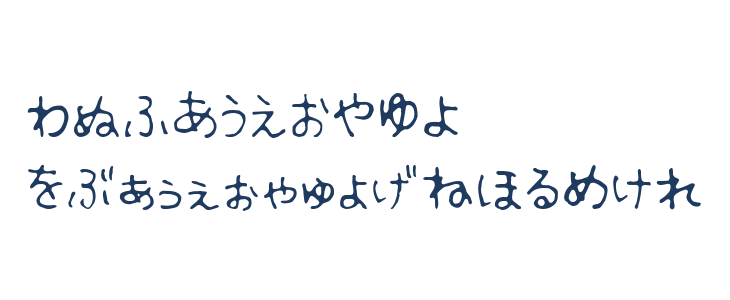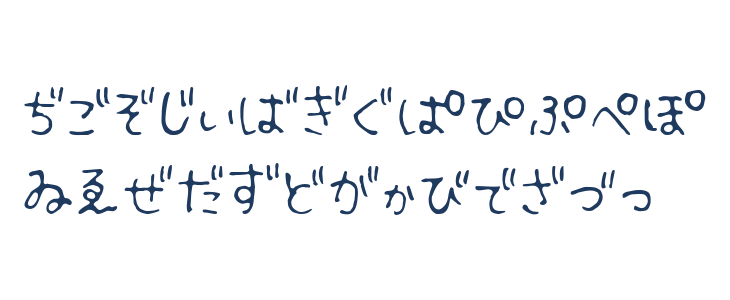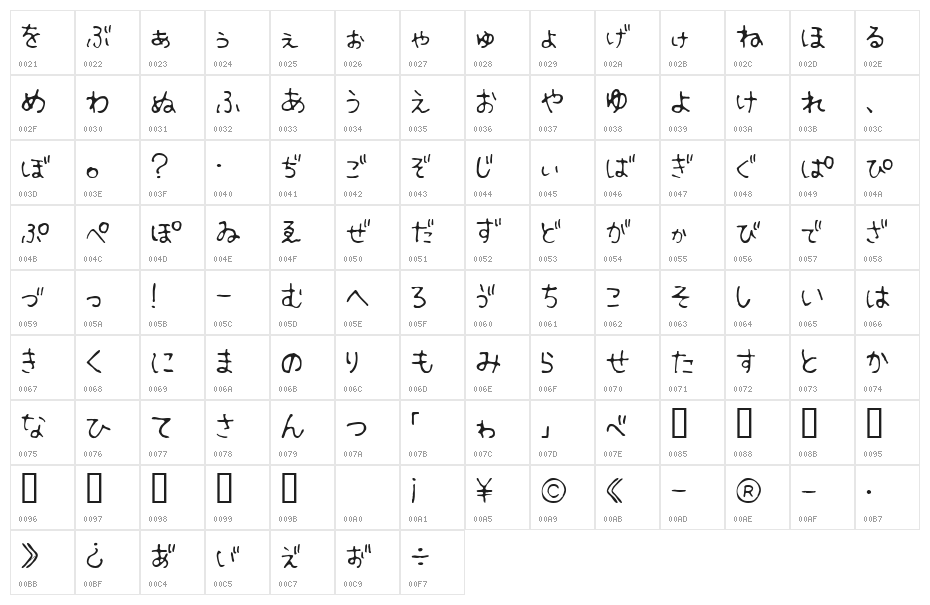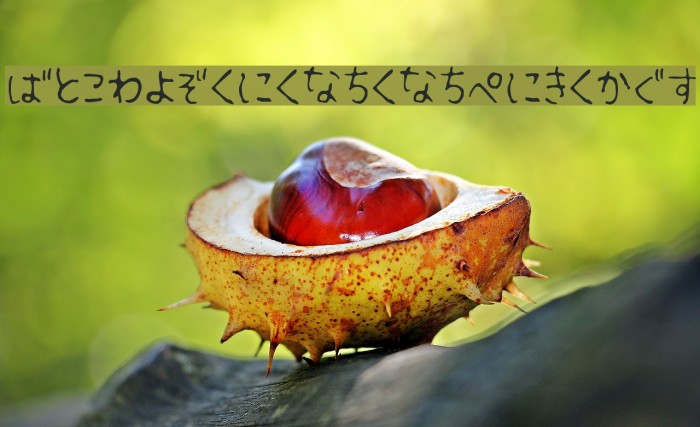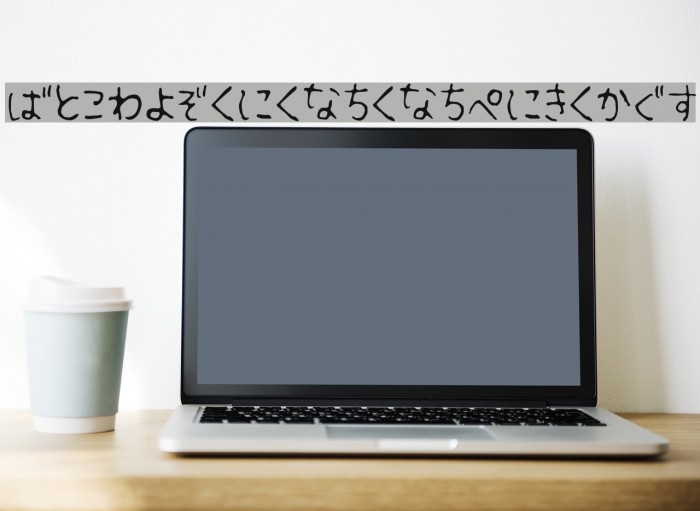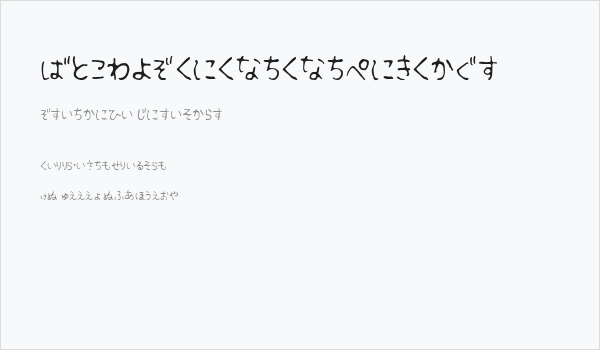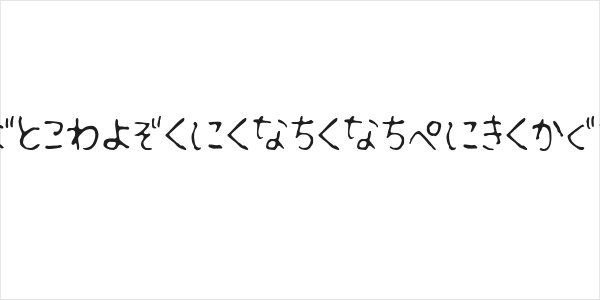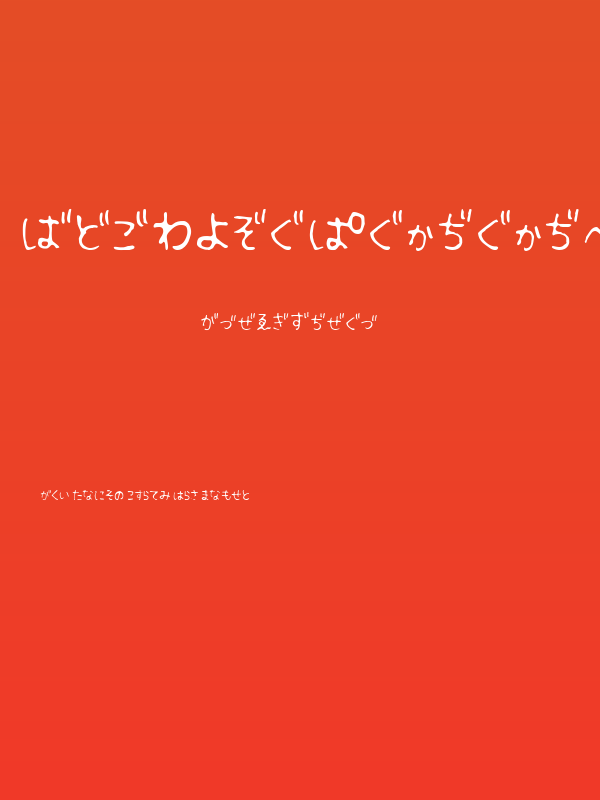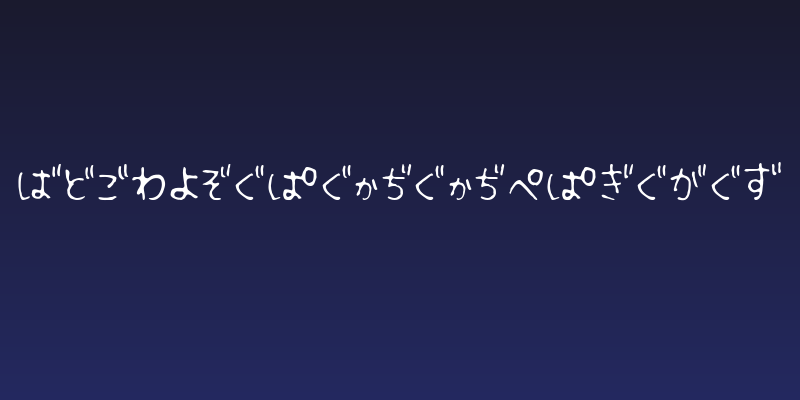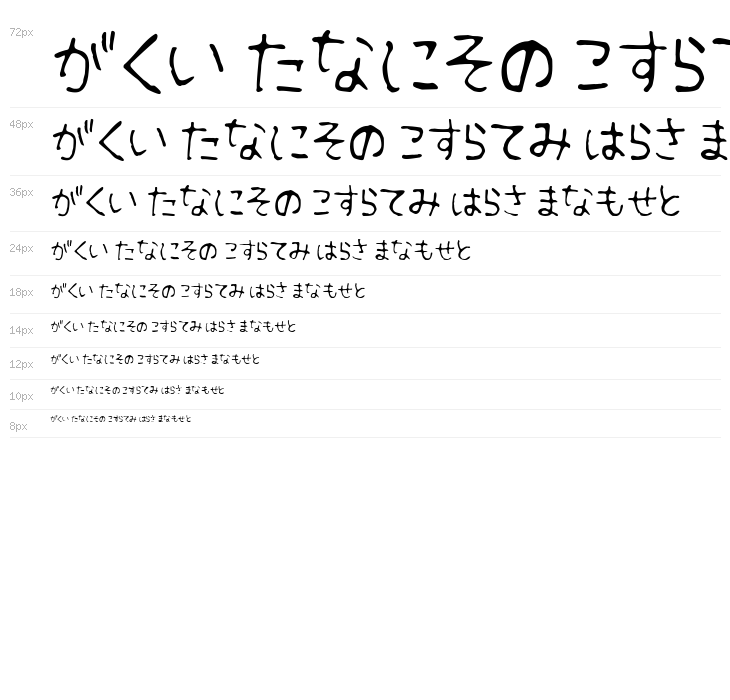
Fsb09ChihuahuaLightHr Font
Fsb09ChihuahuaLightHr Description
This font presents a playful and informal style, characterized by its handwritten appearance. The strokes are uneven, giving it a casual and friendly feel. The characters are slightly rounded with a natural flow, reminiscent of a personal note or a casual letter. The font maintains a consistent baseline, but the heights of the characters vary, adding to its whimsical charm. This style is particularly engaging for projects that aim to convey warmth and approachability. The overall look is both unique and inviting, making it suitable for creative and informal applications.
| Proposed Projects | Ideal for children's books, greeting cards, personal blogs, and informal branding. |